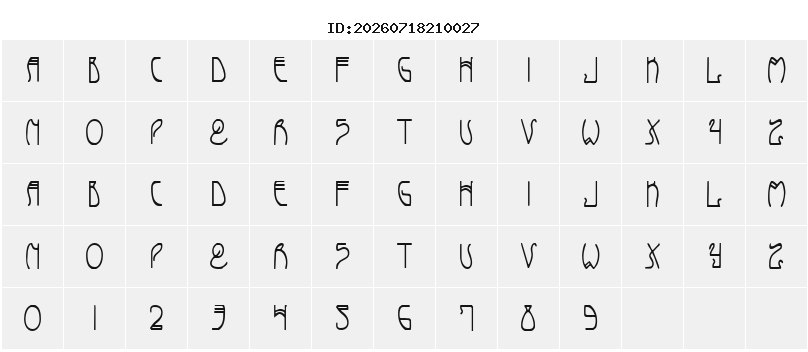
Coyote Deco Condensed Preview
• Font Name: Coyote Deco Condensed
• Font Style: Condensed
• Full Font Name: Coyote Deco Condensed
About Coyote Deco Condensed.ttf
Coyote Deco Condensed.ttf is a modern, elegant sans-serif font designed for ultimate readability and visual harmony. Perfect for branding, headlines, web design, and print materials.